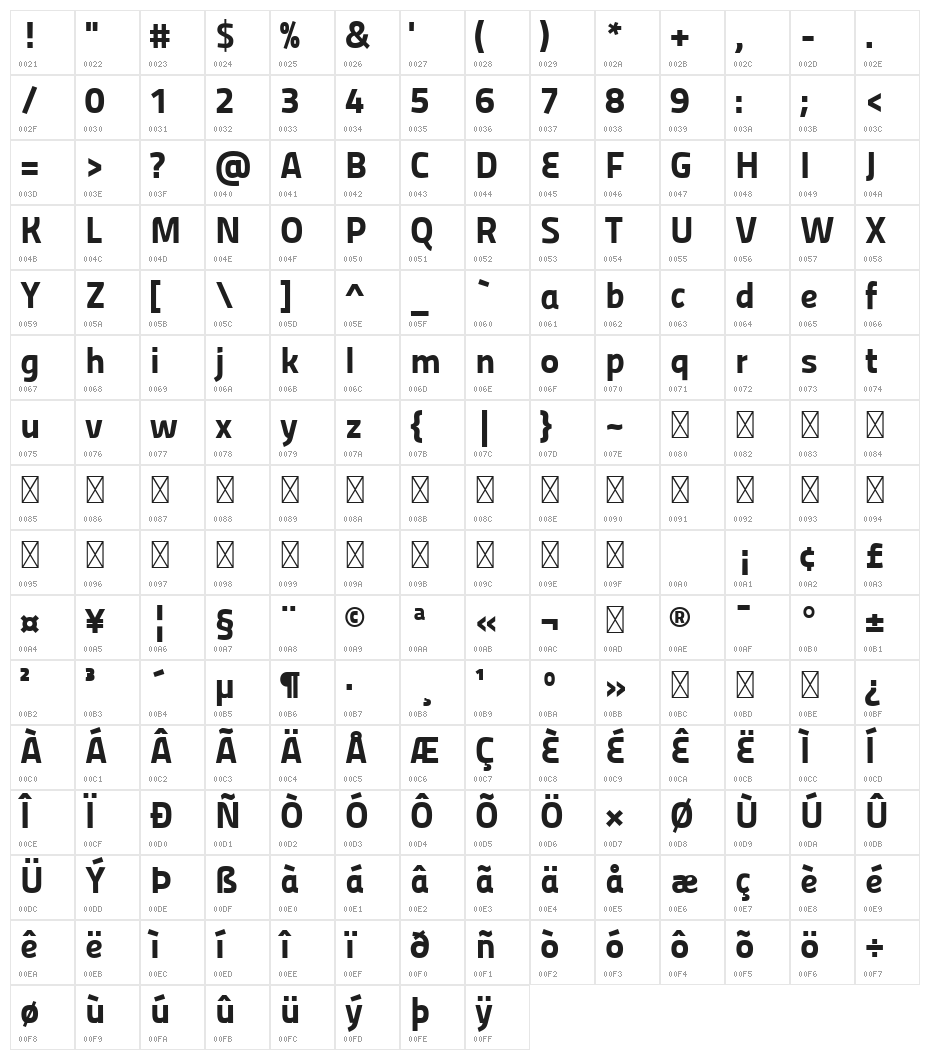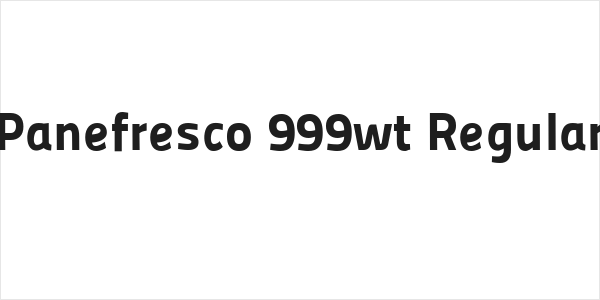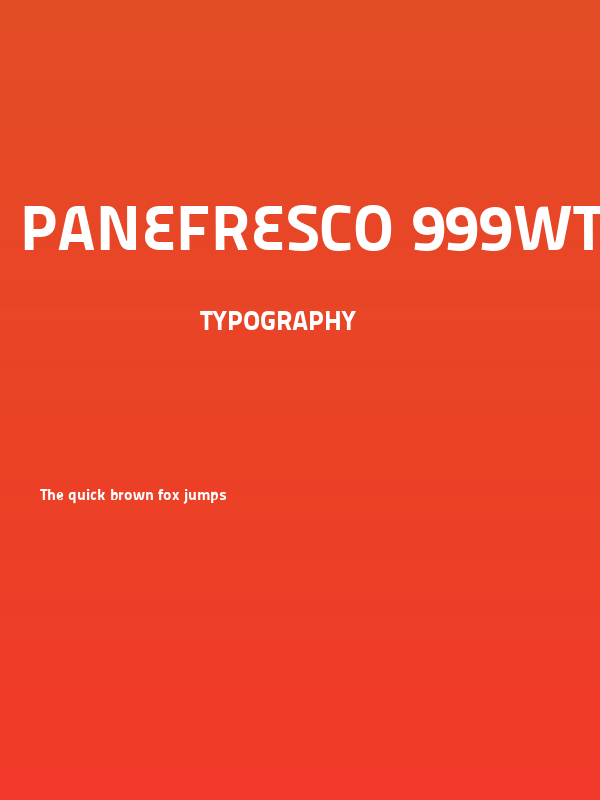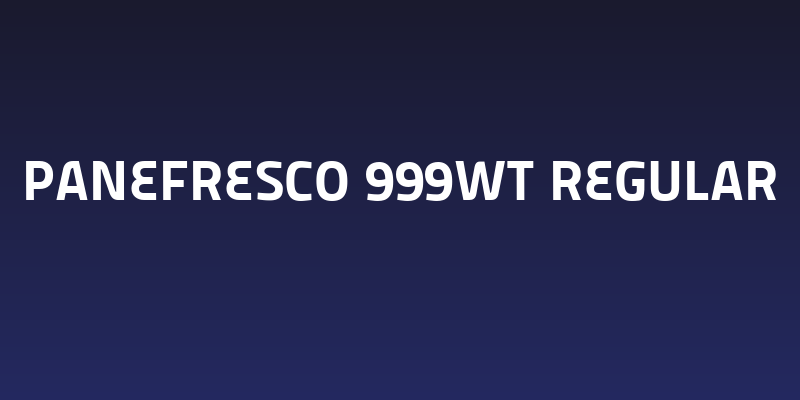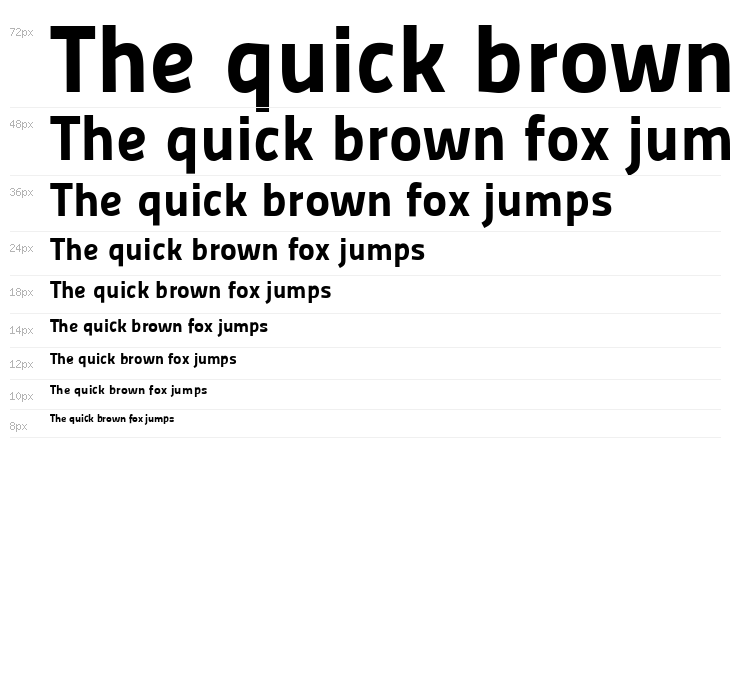
Panefresco 999wt Regular Font
Panefresco 999wt Regular Description
This font features a bold and modern sans-serif style with clean lines and a strong presence. The uppercase letters are uniform and slightly condensed, giving a compact and efficient look. The lowercase letters maintain a consistent height and width, ensuring readability and balance. The numerals are clear and distinct, matching the overall boldness of the font. Special characters are well-integrated, maintaining the font's cohesive appearance. The overall design is versatile, suitable for various applications requiring a contemporary and impactful typeface.
| Use Case | Headlines, Logos, Digital interfaces |
| Proposed Projects | Ideal for branding, advertising, headlines, and digital interfaces where a modern and bold statement is needed. |